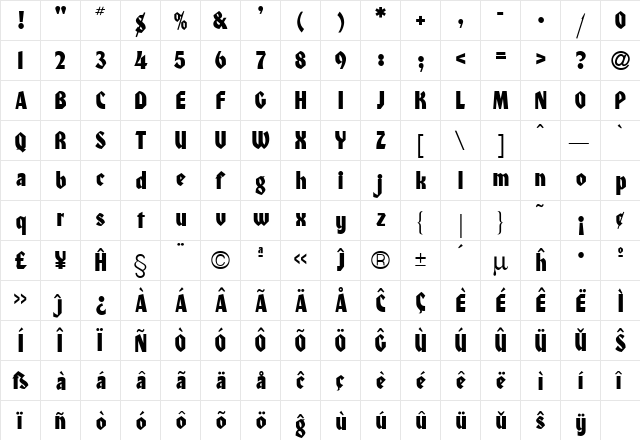
Honda Eo Regular
Design Context for Honda Eo Typeface
Honda Eo is a composed and adaptable typeface that performs quietly and consistently across a wide range of design contexts.